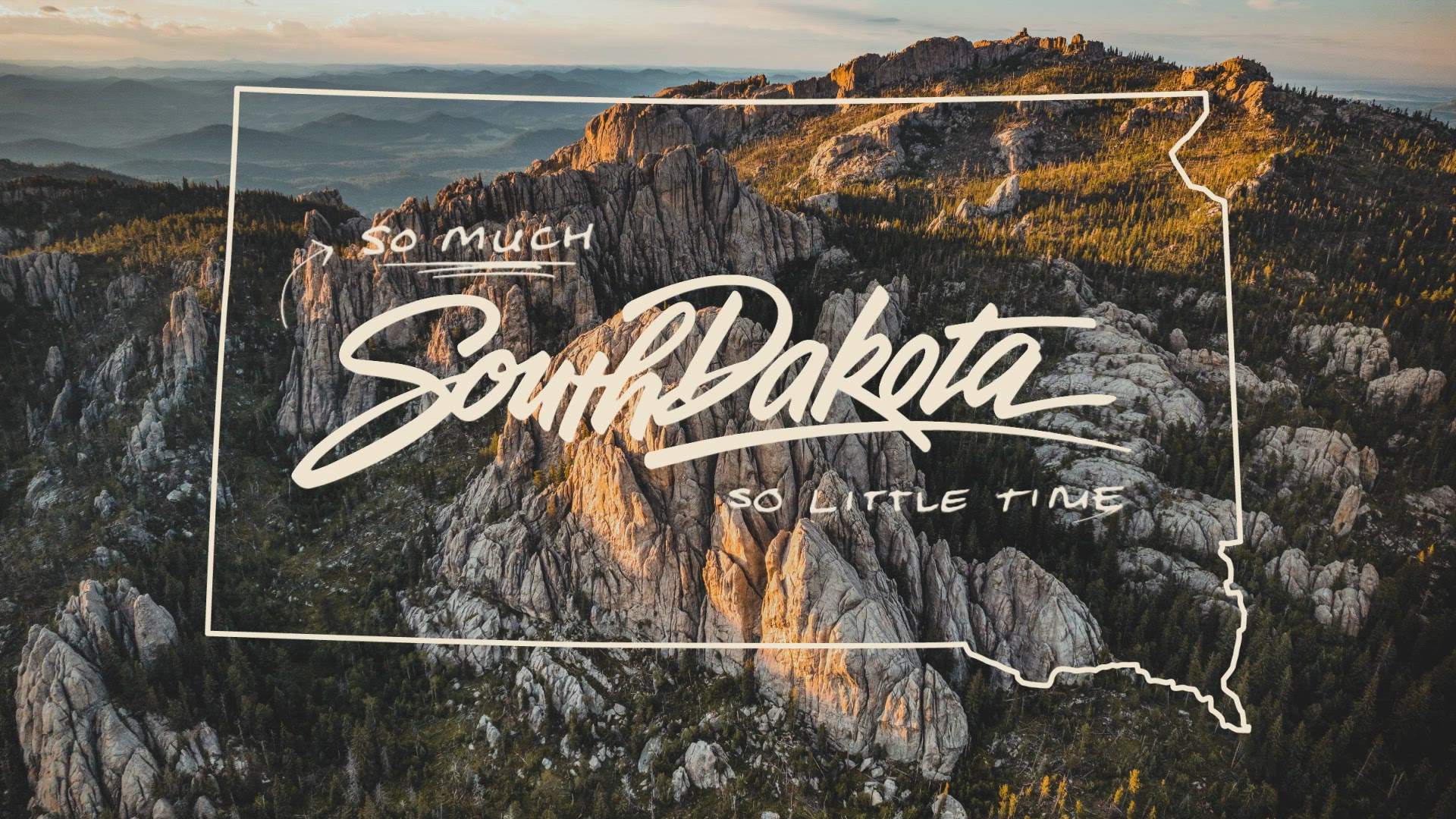
Suppose a traveler wandering South Dakota were to jot down their experiences as they happened. What would we see on paper? What would their writing look like? "Brave Bison" is a custom handwritten font that answers these questions.
The font is named after one of South Dakota’s most iconic animals and taps into the mindset of those who explore the state: brave. The font's characteristics feel real and authentic, as if you can see the enthusiasm for new discoveries bleeding out of each pen stroke. The font reflects the fast energy of trying to see, do, and experience as much of South Dakota as possible.